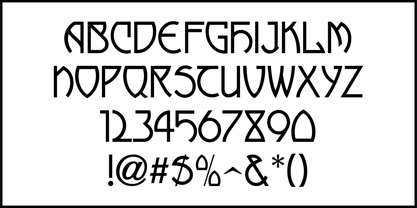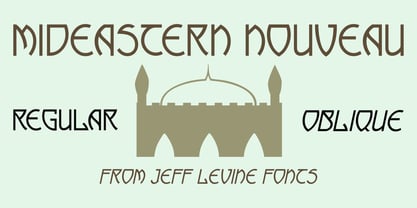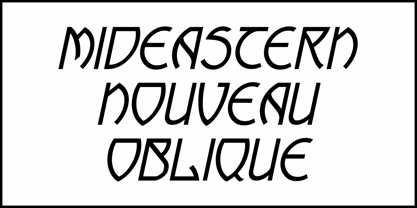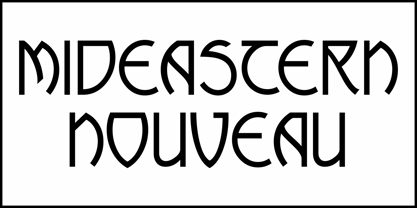
Mideastern Nouveau JNL
by Jeff Levine
The Mideastern Nouveau JNL Font Family was designed by Jeff Levine and published by Jeff Levine. Mideastern Nouveau JNL contains 2 styles and family package options. More about this family
One of the many type examples in the 1923 book entitled "Art Alphabets & Lettering" by J.M. Bergling captured the essence of the Art Nouveau movement as well as a nod to Mideastern influence.
You can possibly imagine English language signs in Egypt, Morocco or Algeria welcoming visitors yet reflecting the art and culture of those countries, and this design is now available as Mideastern Nouveau JNL in both regular and oblique versions.